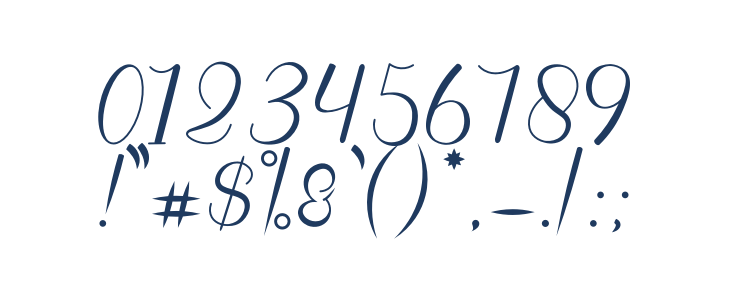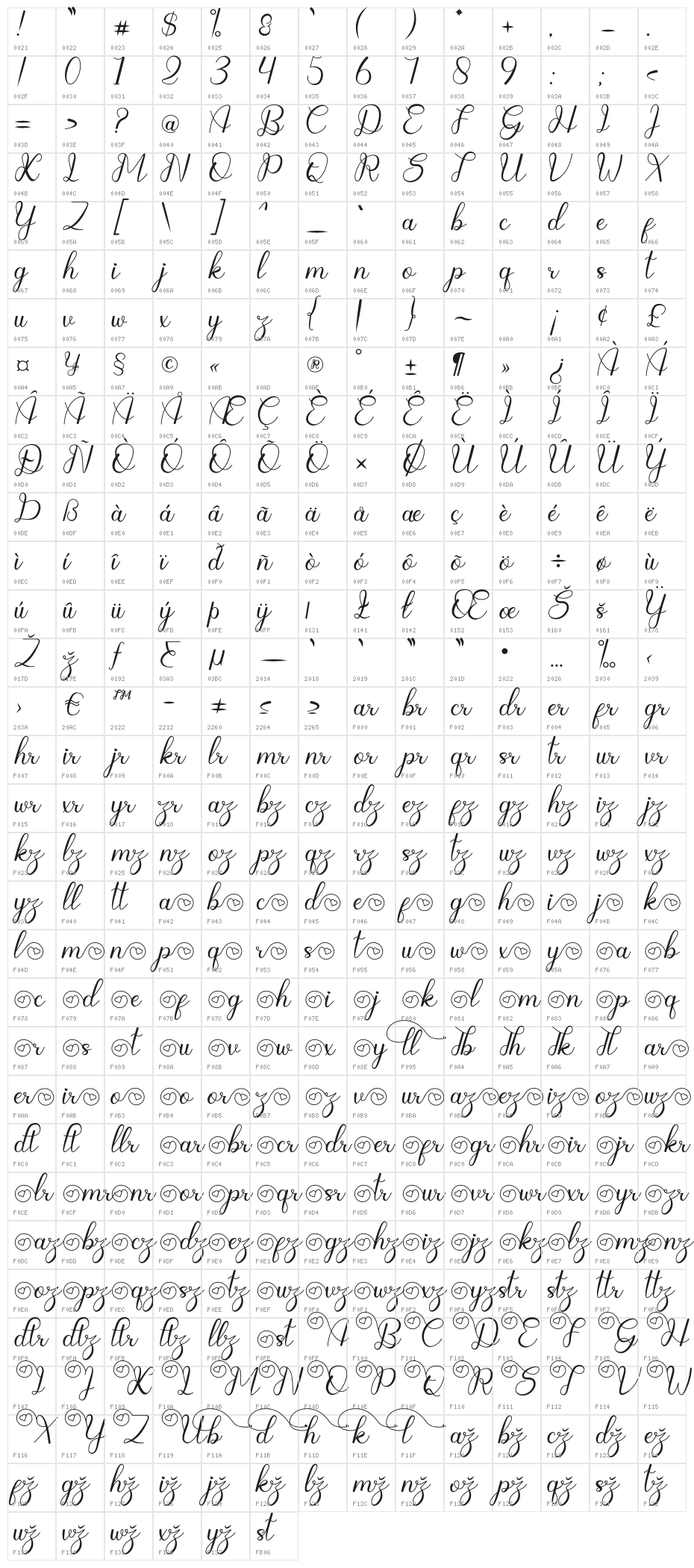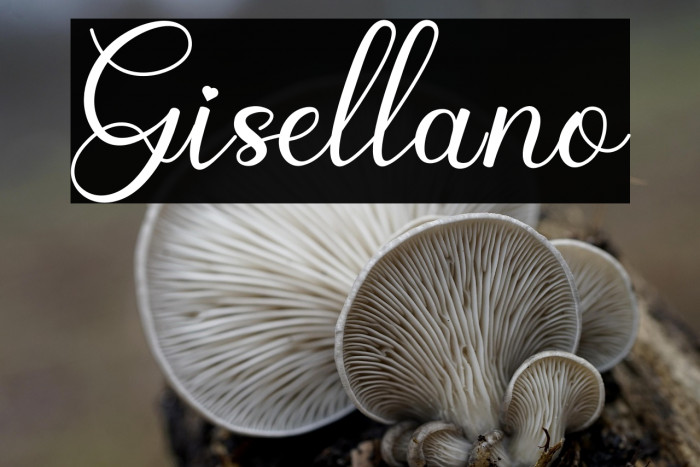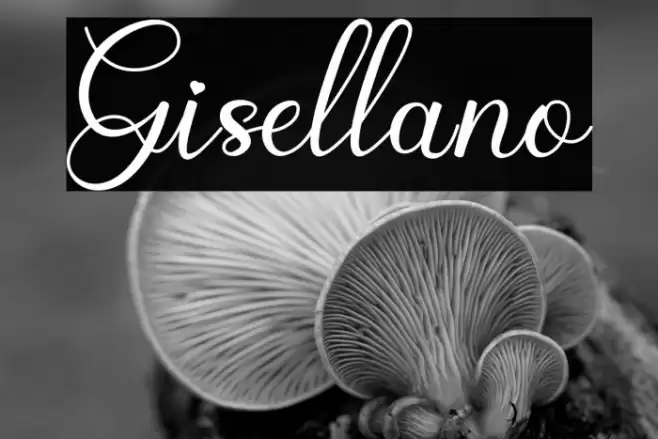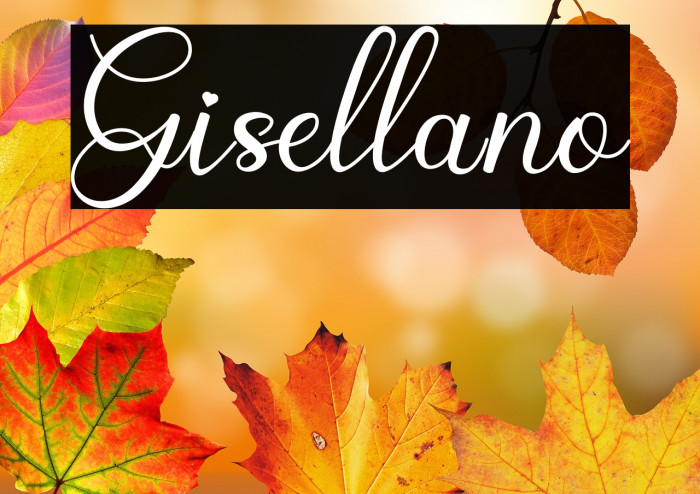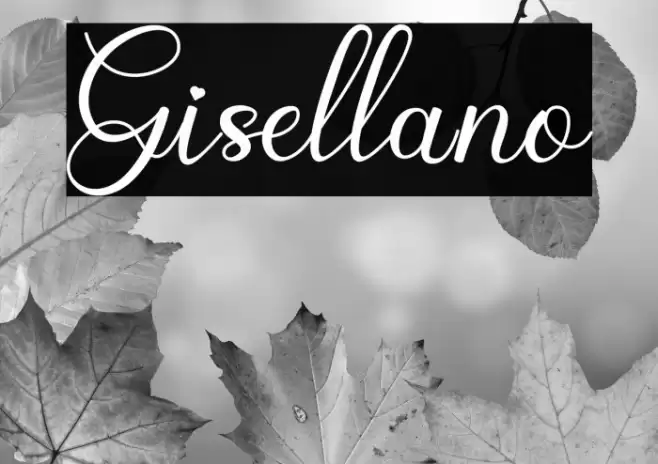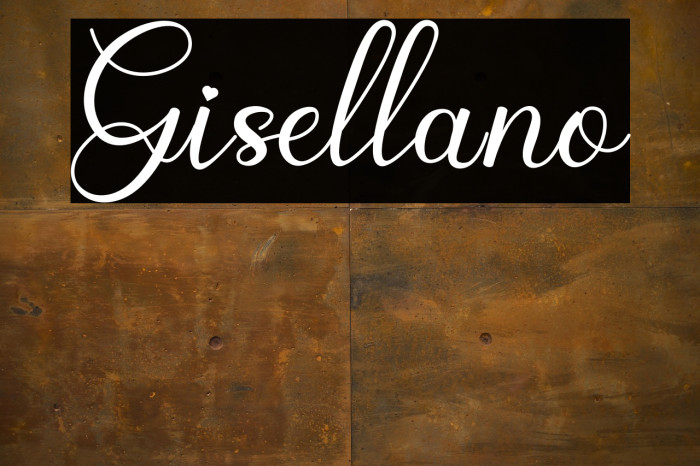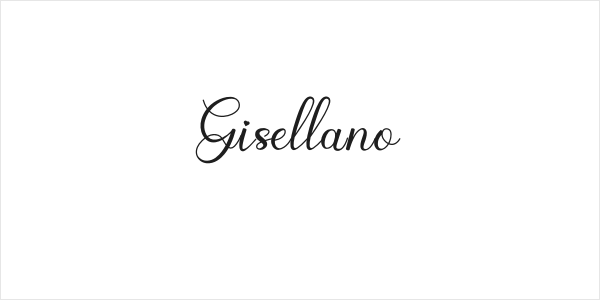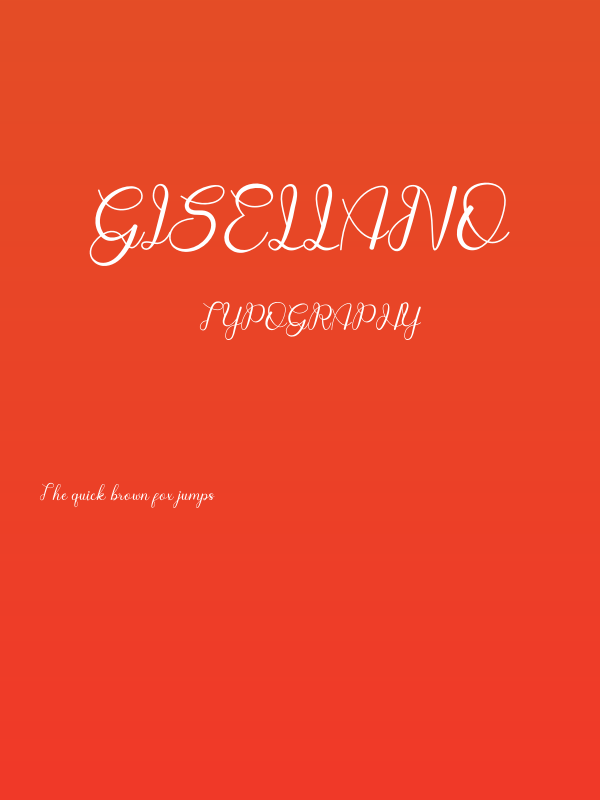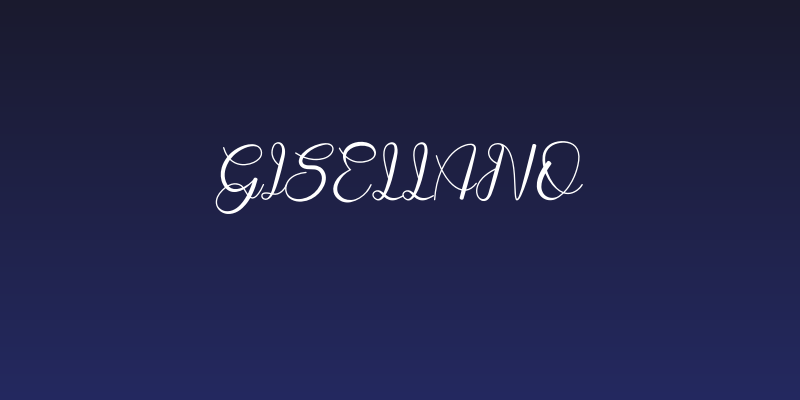
Gisellano Font
Gisellano Description
This elegant script font features a flowing, cursive style with a sophisticated and artistic flair. The uppercase letters are characterized by their graceful loops and swirls, creating a sense of movement and fluidity. The lowercase letters maintain a consistent style, with smooth curves and a slightly slanted orientation. The numerals are designed with a similar aesthetic, offering a cohesive look across all characters. Special characters are thoughtfully integrated, enhancing the font's versatility. This font exudes a sense of elegance and charm, making it suitable for a variety of creative applications.
| Proposed Projects | Ideal for wedding invitations, elegant branding, greeting cards, and artistic projects. |